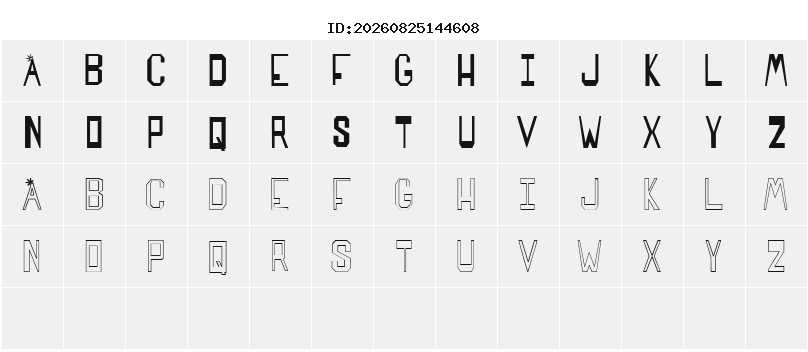
• Font Name: SPARKS MADE US
• Designer: SpideRaY
• Description: This is the official font of the Band (Sparks Made Us) is stripped back version is classed as freeware for personal use only, if you would like to follow the band and it's music pleae to go http://sparksmadeus.tumblr.com/ for samples of their latest tracks.
SPARKS MADE US.ttf is a modern, elegant sans-serif font designed for ultimate readability and visual harmony. Perfect for branding, headlines, web design, and print materials.